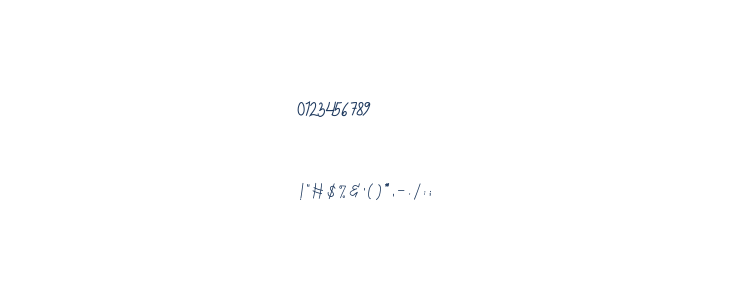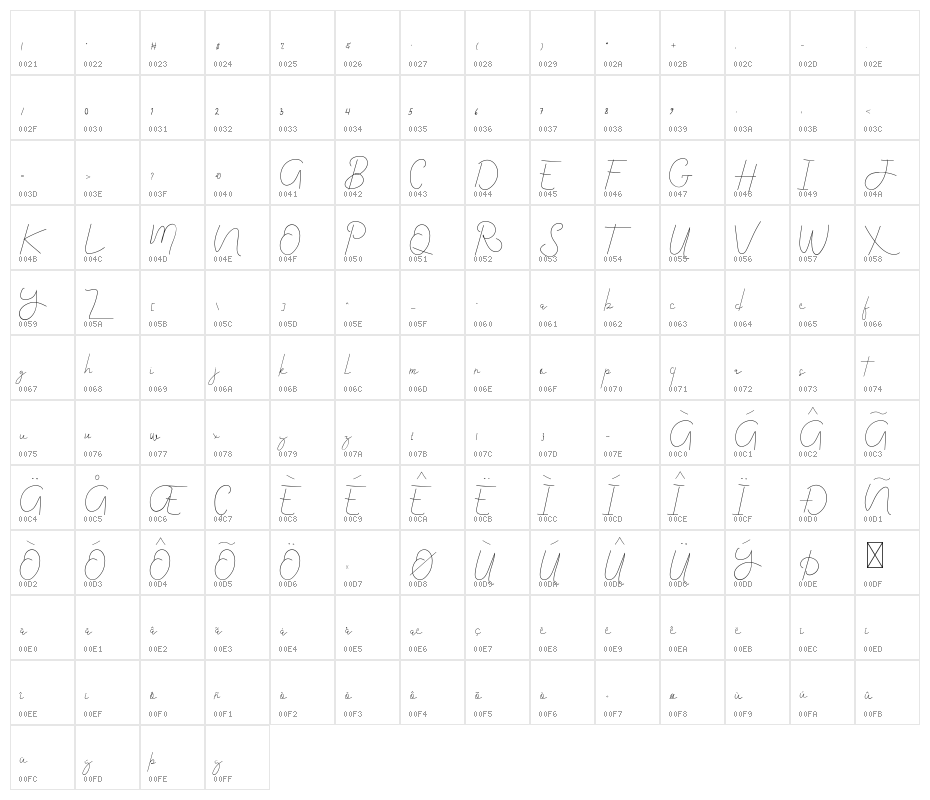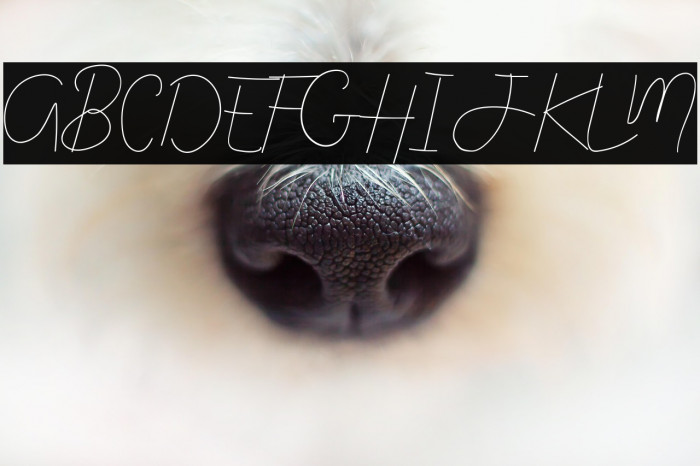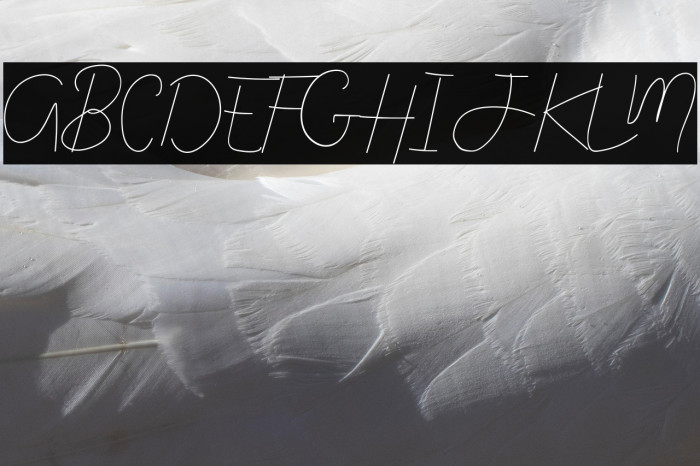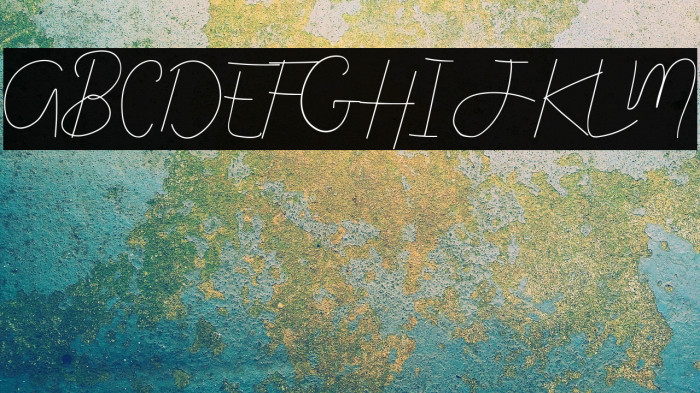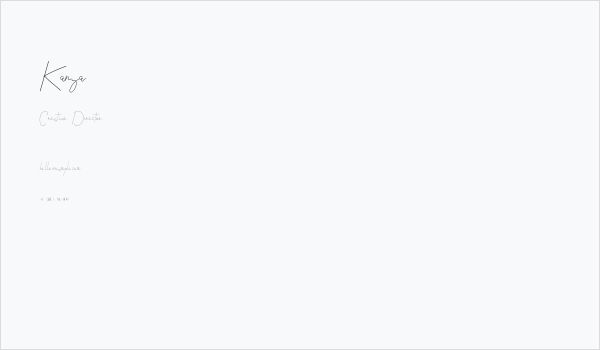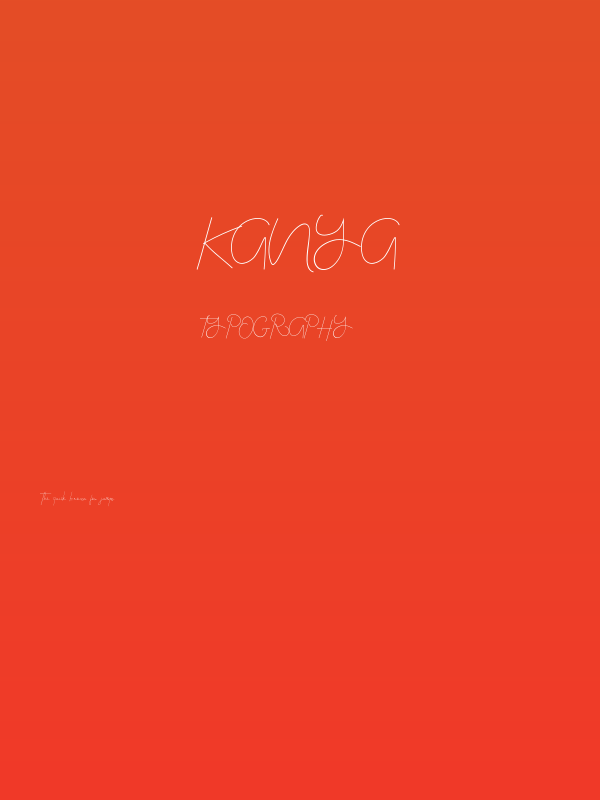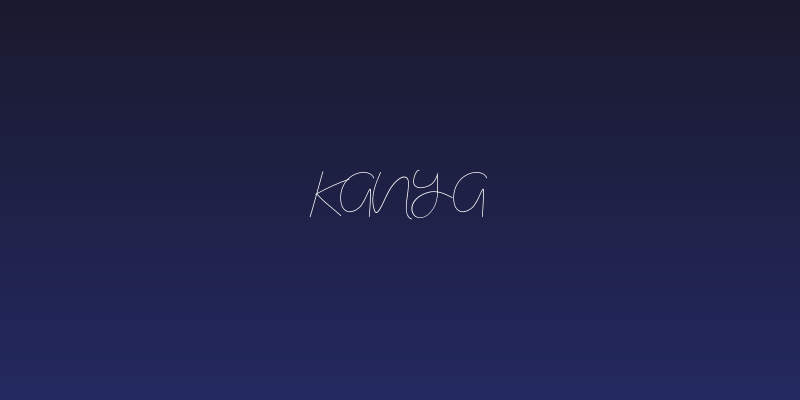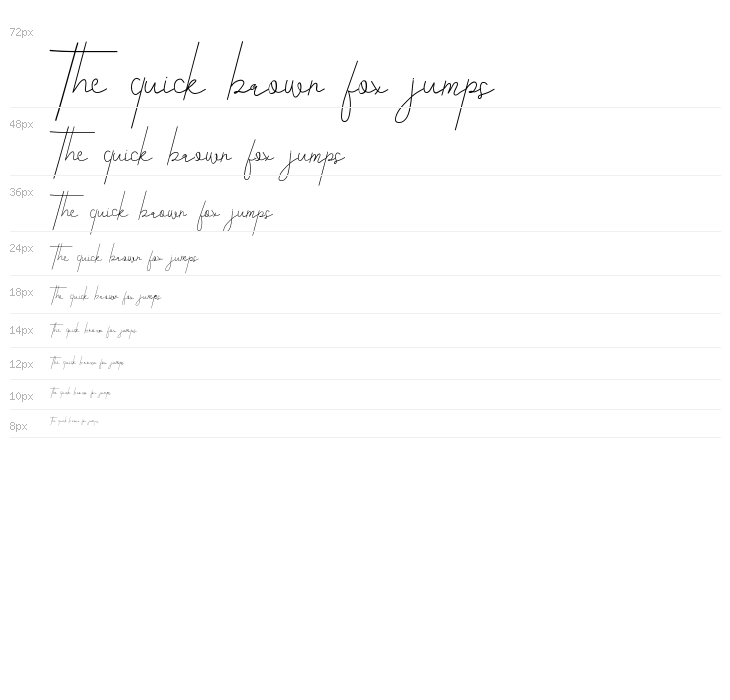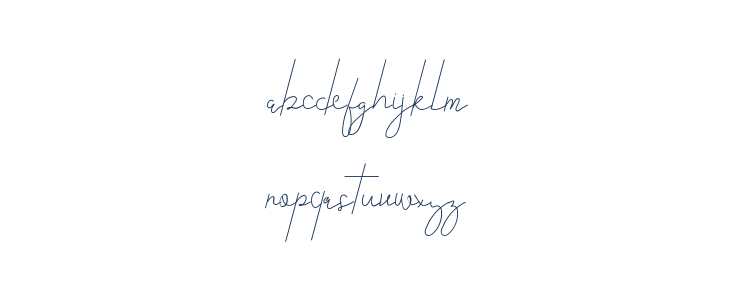
Kanya Font
Kanya Description
This font features an elegant and flowing script style with a modern twist. The uppercase letters are characterized by their tall, slender forms and graceful curves, giving them a sophisticated appearance. The lowercase letters maintain a consistent fluidity, with some characters extending below the baseline, adding a touch of whimsy. The numerals are distinct and easy to read, while the special characters complement the overall aesthetic with their unique and stylish designs. The font's thin strokes and delicate lines create a sense of lightness and elegance, making it suitable for a variety of design projects.